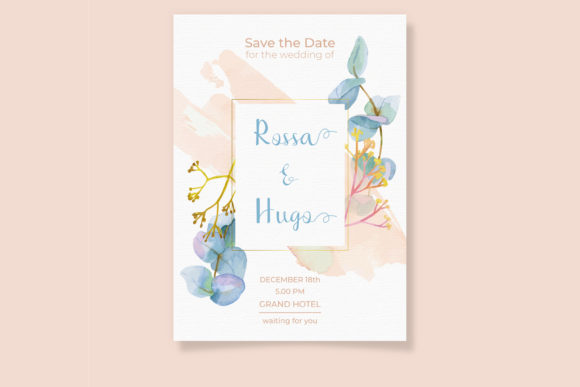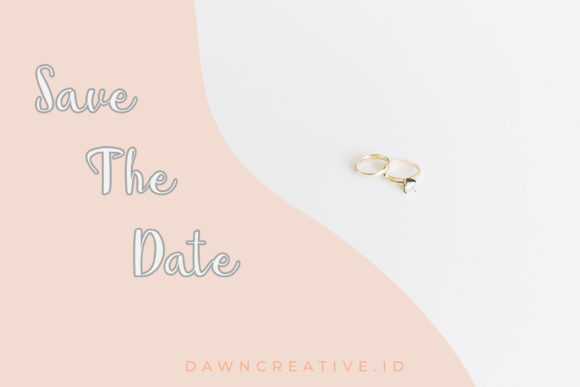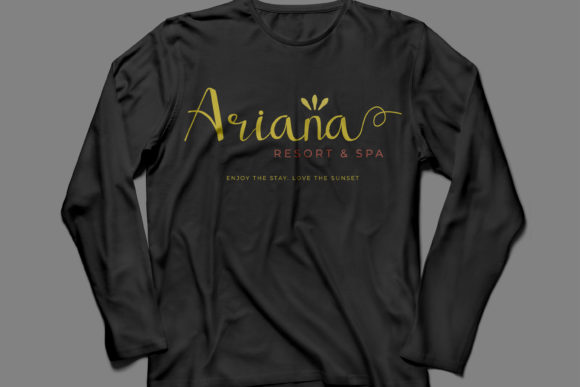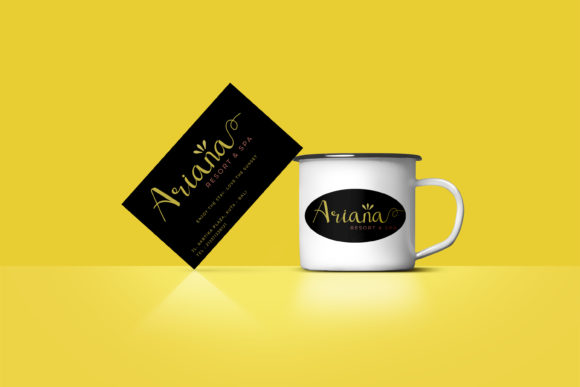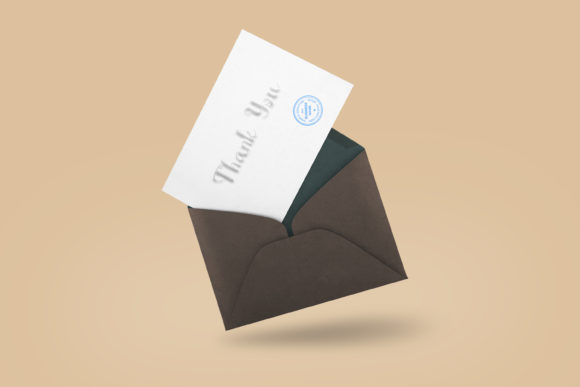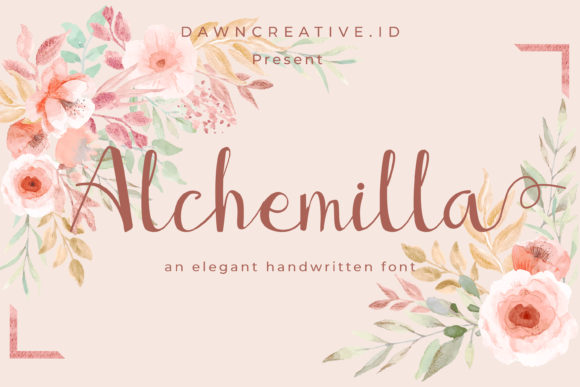
The Sweet Charm of Alchemilla Font: A Designer’s Delight
I’ll never forget the moment I stumbled upon Alchemilla Font while working on a spring-themed project for a client. I had been searching for the perfect script font to evoke the feeling of renewal and growth, but nothing seemed quite right. That was until I saw Alchemilla – its elegant and sweet curves instantly transported me to a garden blooming with fresh flowers. In this article, I’ll share my experience with Alchemilla, its features, and how to make the most of this beautiful font.
An Honest Review of Alchemilla Font
What I Love About Alchemilla ✨
• 💫 Elegant and refined script style perfect for spring and summer themes
• 🌸 Beautifully designed swashes and flourishes for added flair
• 📚 Supports multiple languages, making it versatile for global projects
• ⚠️ Limited availability of bold or heavy weights, which might not suit all design needs
• 😐 Some users might find the font a bit too ornate for very casual or minimalist designs
The Backstory Behind Alchemilla
Alchemilla was designed with the intention of capturing the essence of spring. Its creator drew inspiration from the delicate beauty of flowers and the elegance of handwritten scripts. The result is a font that feels both whimsical and refined, perfect for projects that require a touch of springtime charm.
Font Name Alchemilla Font
Author DawnCreative.id
Q: What is Alchemilla Font best used for?
A: Alchemilla Font is best used for designs that require an elegant and sweet script style, such as spring and summer themes, wedding invitations, and feminine branding.
Q: Does Alchemilla support OpenType features?
A: Yes, Alchemilla supports OpenType features, including swashes, stylistic alternates, and ligatures, which can be accessed in compatible software like Adobe Creative Cloud apps.
Q: Is Alchemilla available in multiple weights?
A: Alchemilla comes in various weights, but it might have limited bold or heavy options. Check the font package for available weights and suitable use cases.